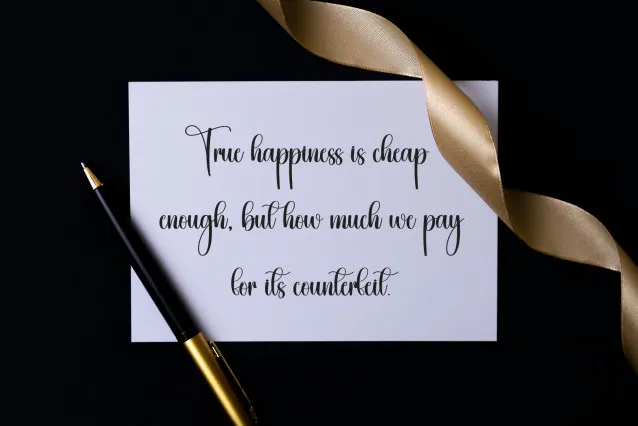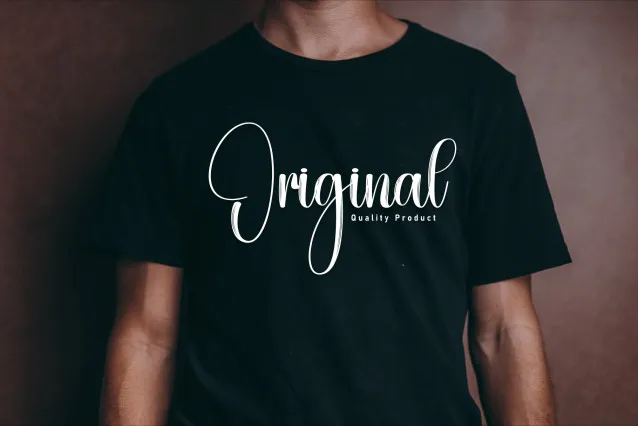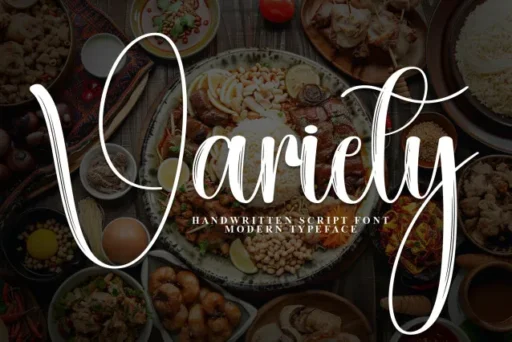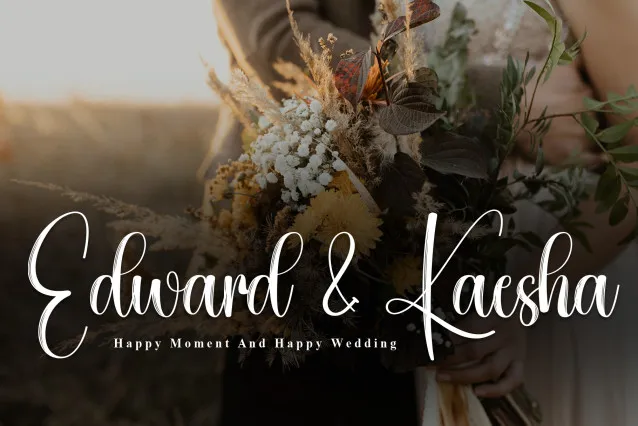
Variety Calligraphy Font
Various The writing style of calligraphy is stylish, and the lines are smooth and flowing. Gorgeous on wedding cards, thank-you notes, and quotes. Cards, logos, and business cards all get a more unique touch when you do this. It gives your work a handmade look.
This font makes your work look creative and unique. Its contemporary letter forms look good on ads, social media posts, and wall art. It works well for watermarks, signs, and packaging. Calligraphy of all kinds is great for projects that need a simple but classy touch.
Where Variety Calligraphy Font works best
Variety Calligraphy Font brings a personal, handwritten warmth to invitations, menus and place cards.
Craft brands — coffee, cosmetics, bakery — use scripts like Variety Calligraphy Font for signature-style logos and labels.
Pair Variety Calligraphy Font with a plain sans for quotes, stories and Pinterest pins that feel handmade.
What is Variety Calligraphy Font good for?
Variety Calligraphy Font is a Script And Handwritten typeface tagged Branding, Calligraphy, Contemporary, Creative. It works well for headlines, logos, posters, social media graphics and branding projects that need a distinctive script and handwritten look.